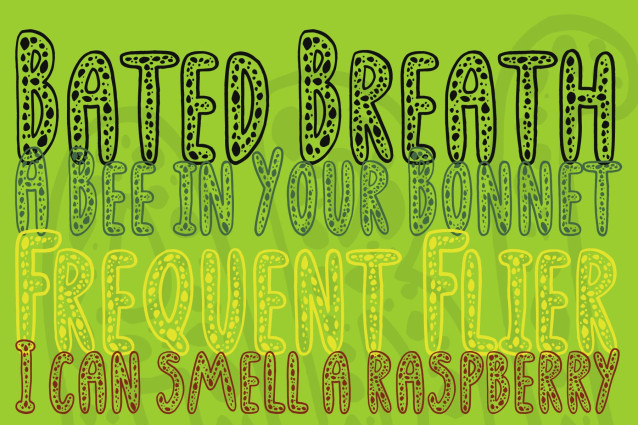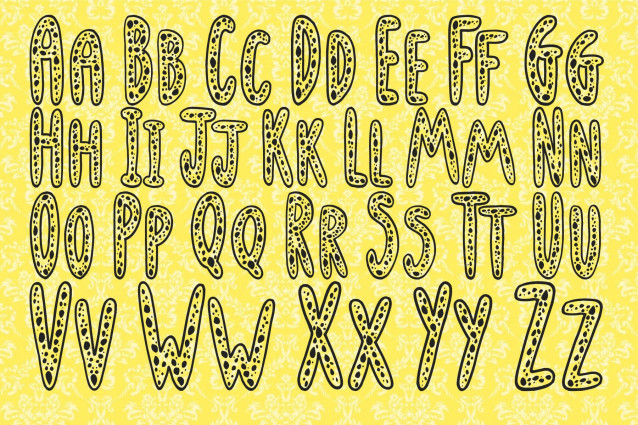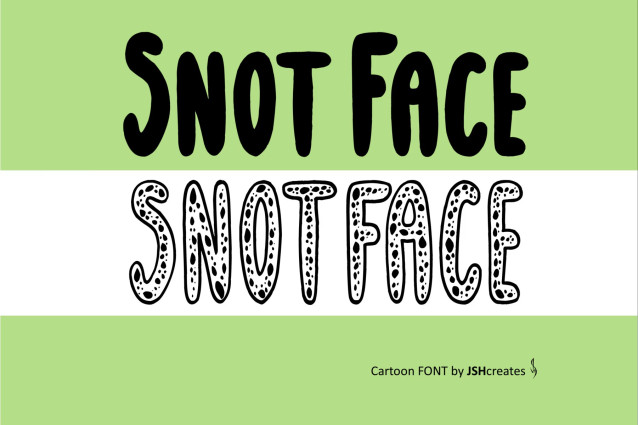
Snot Face Font
Snot Face Font – Playful Cartoon font. Perfect for advertising and display purposes, including banners, book covers, shirts, posters, tattoos, logos and much more!